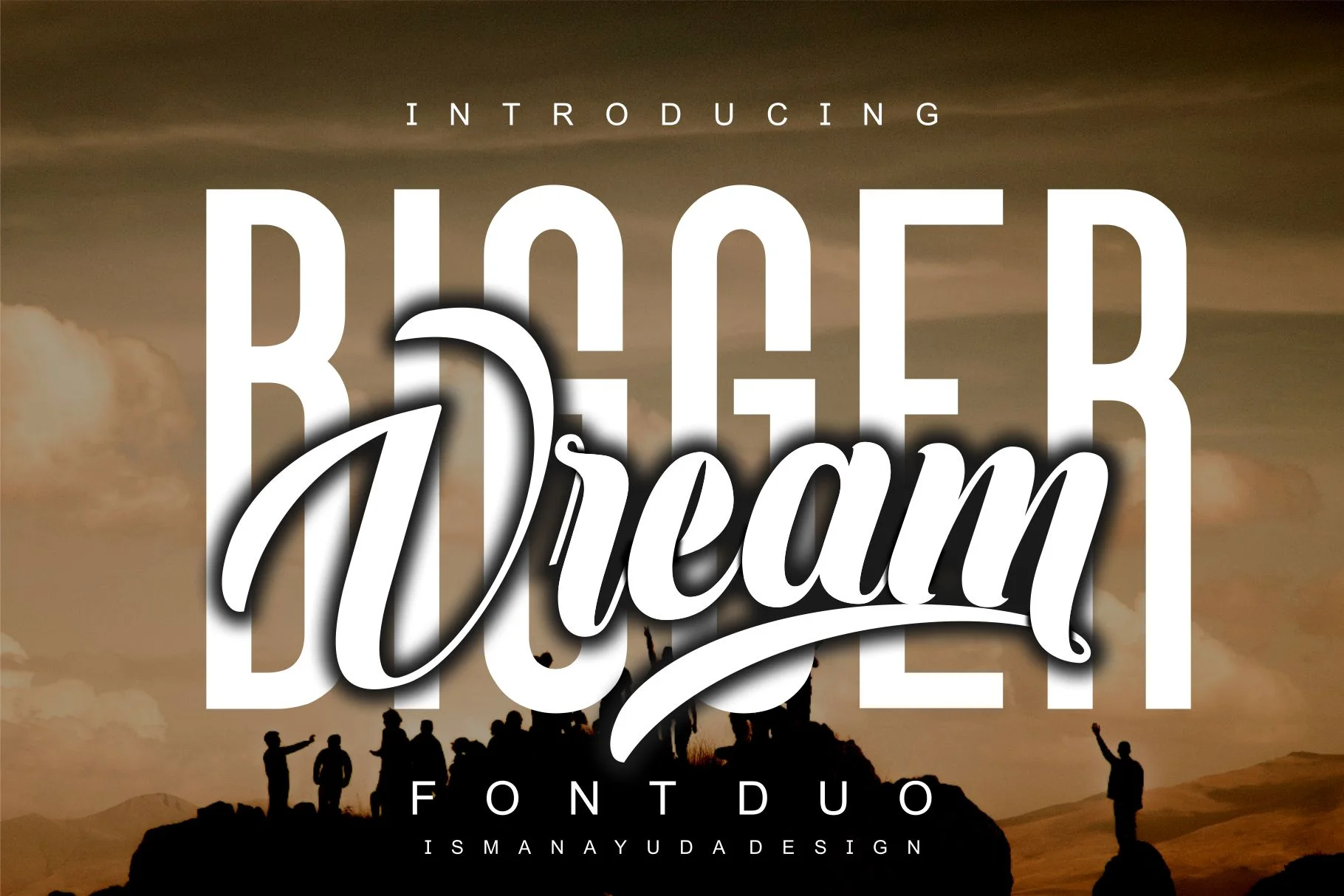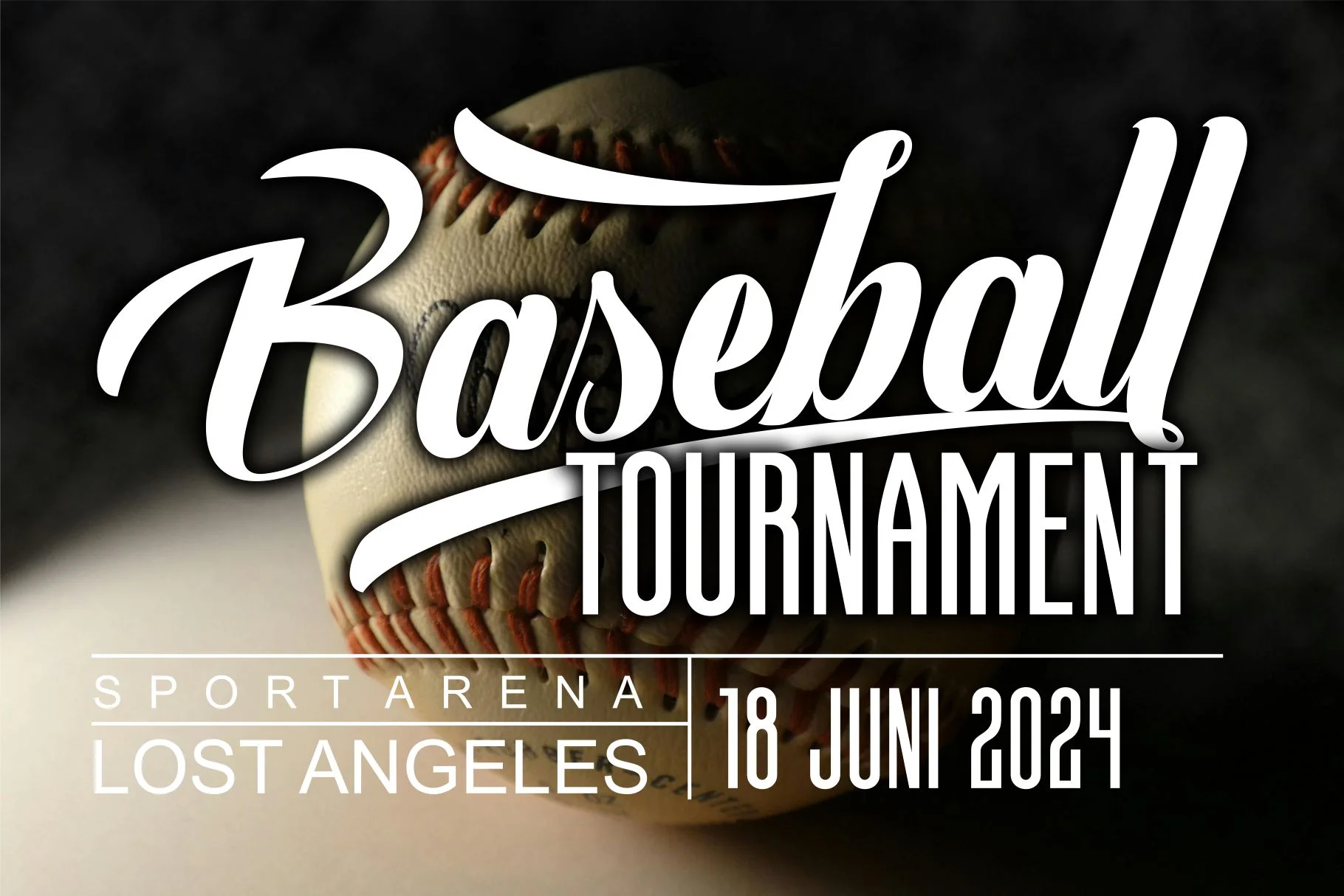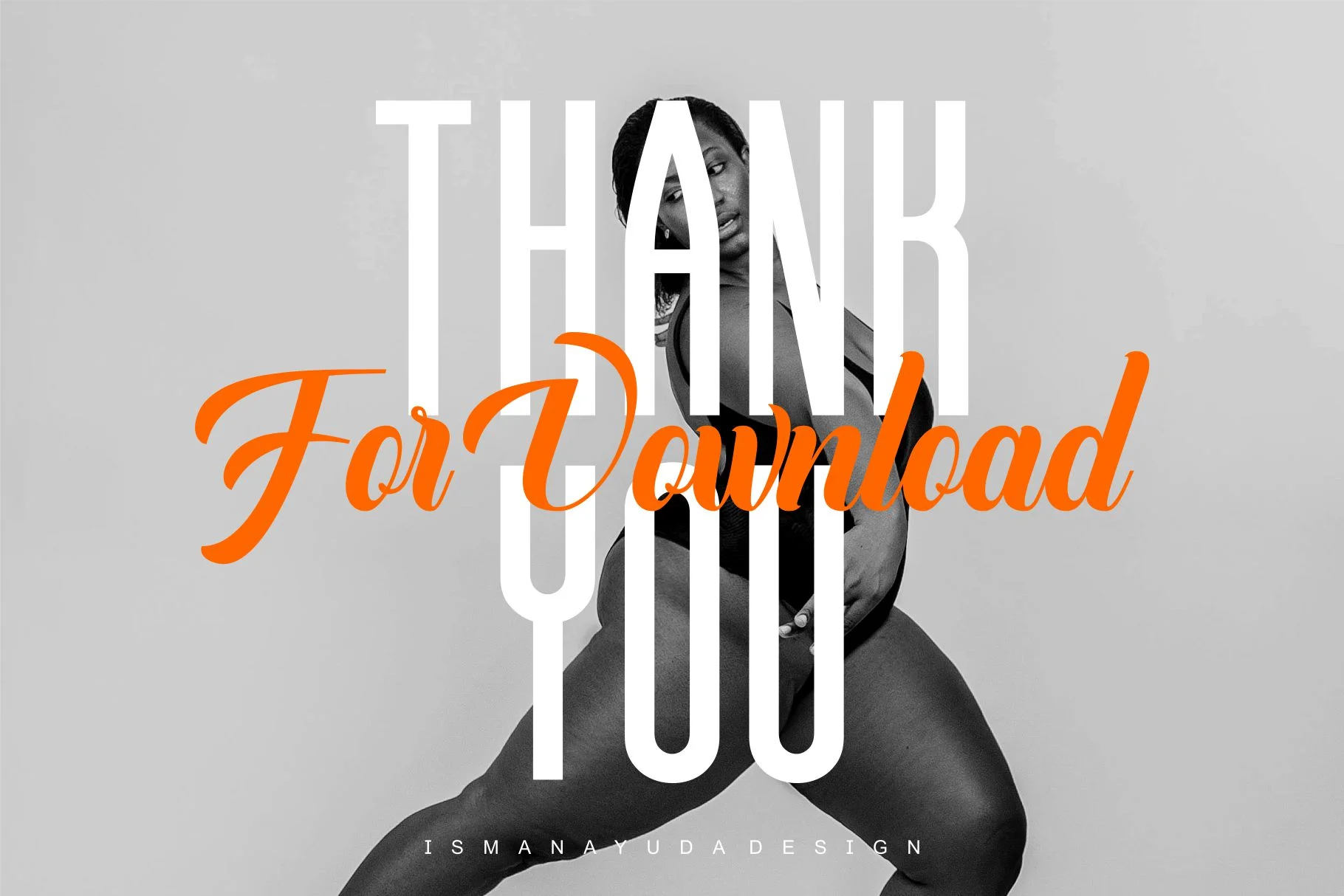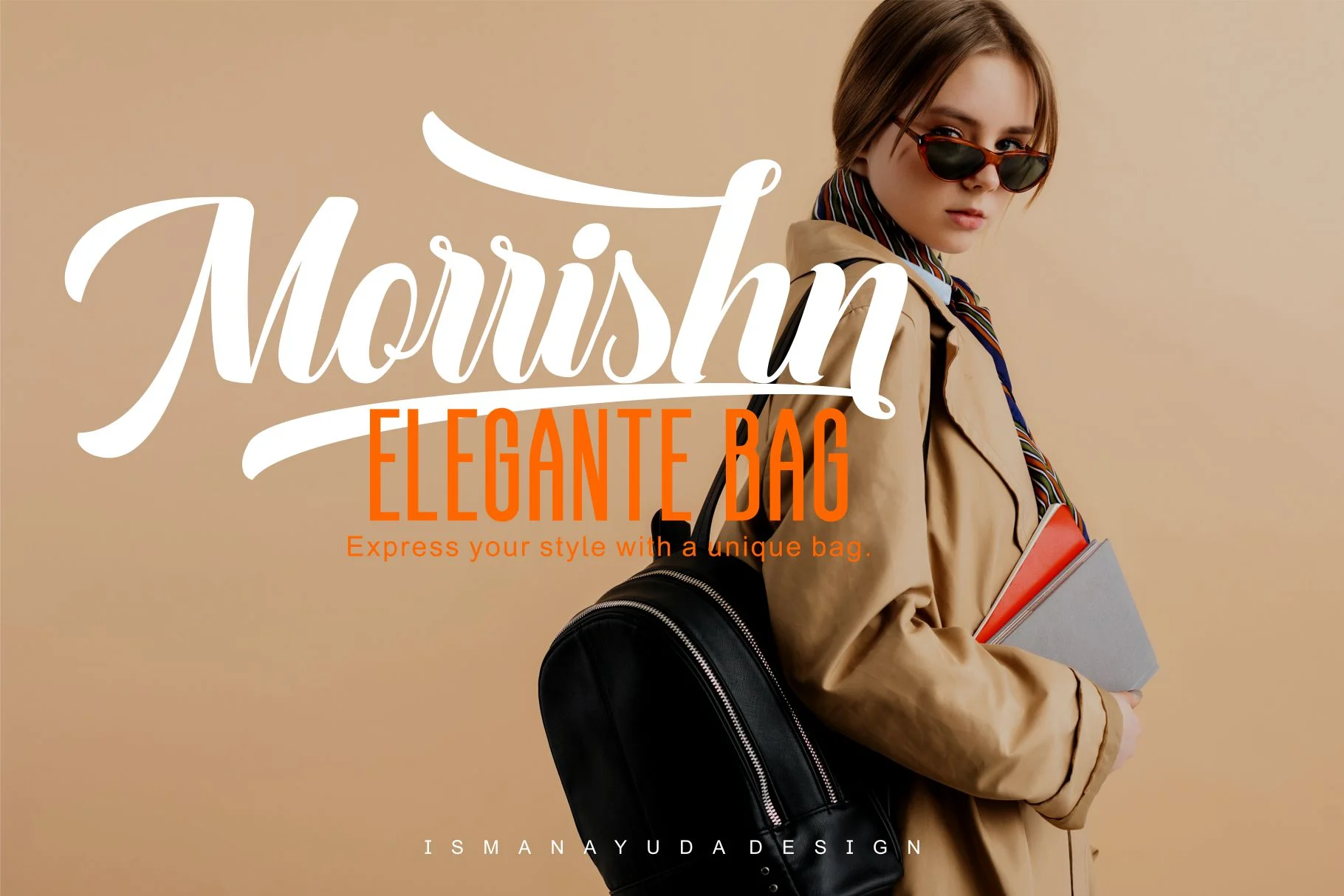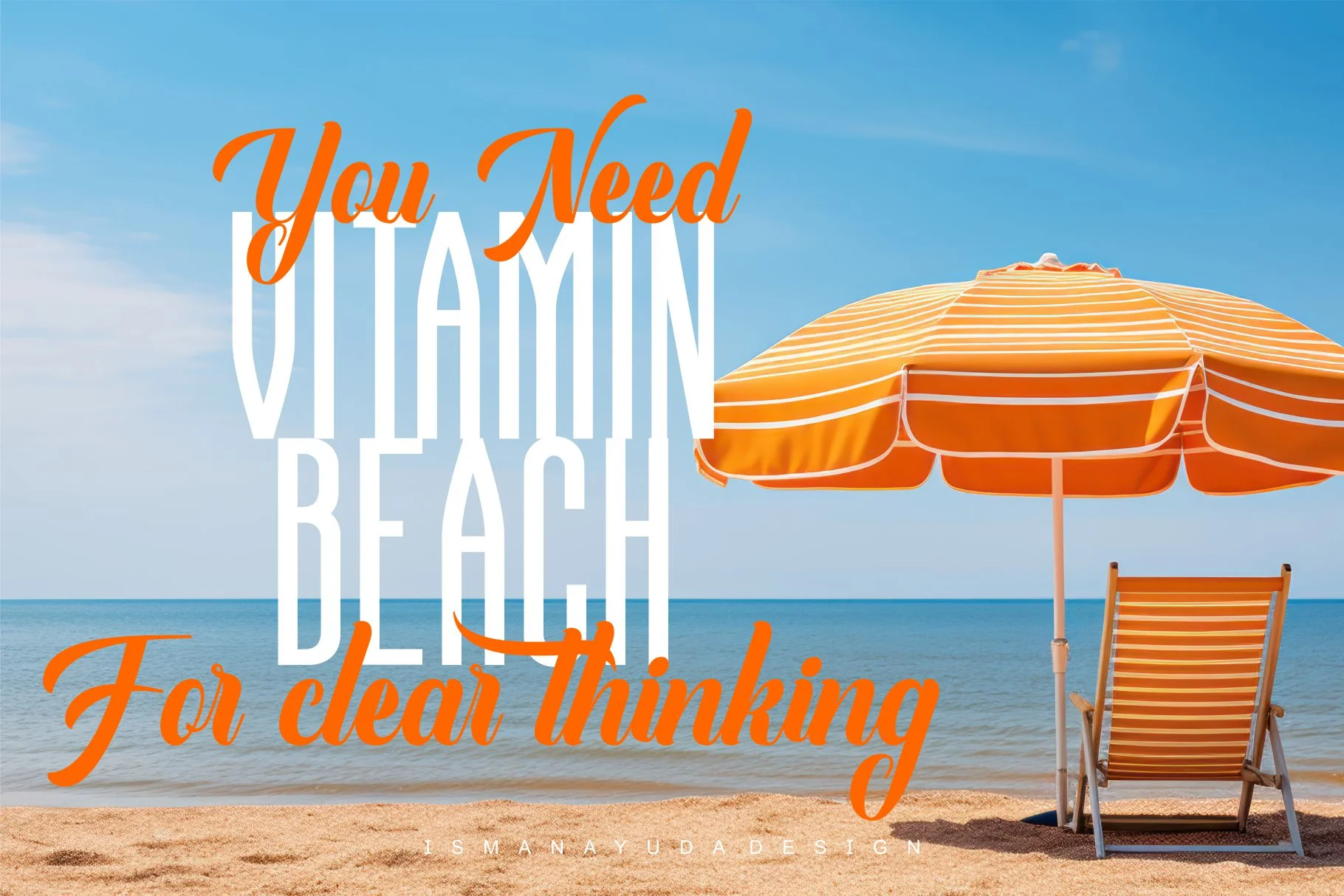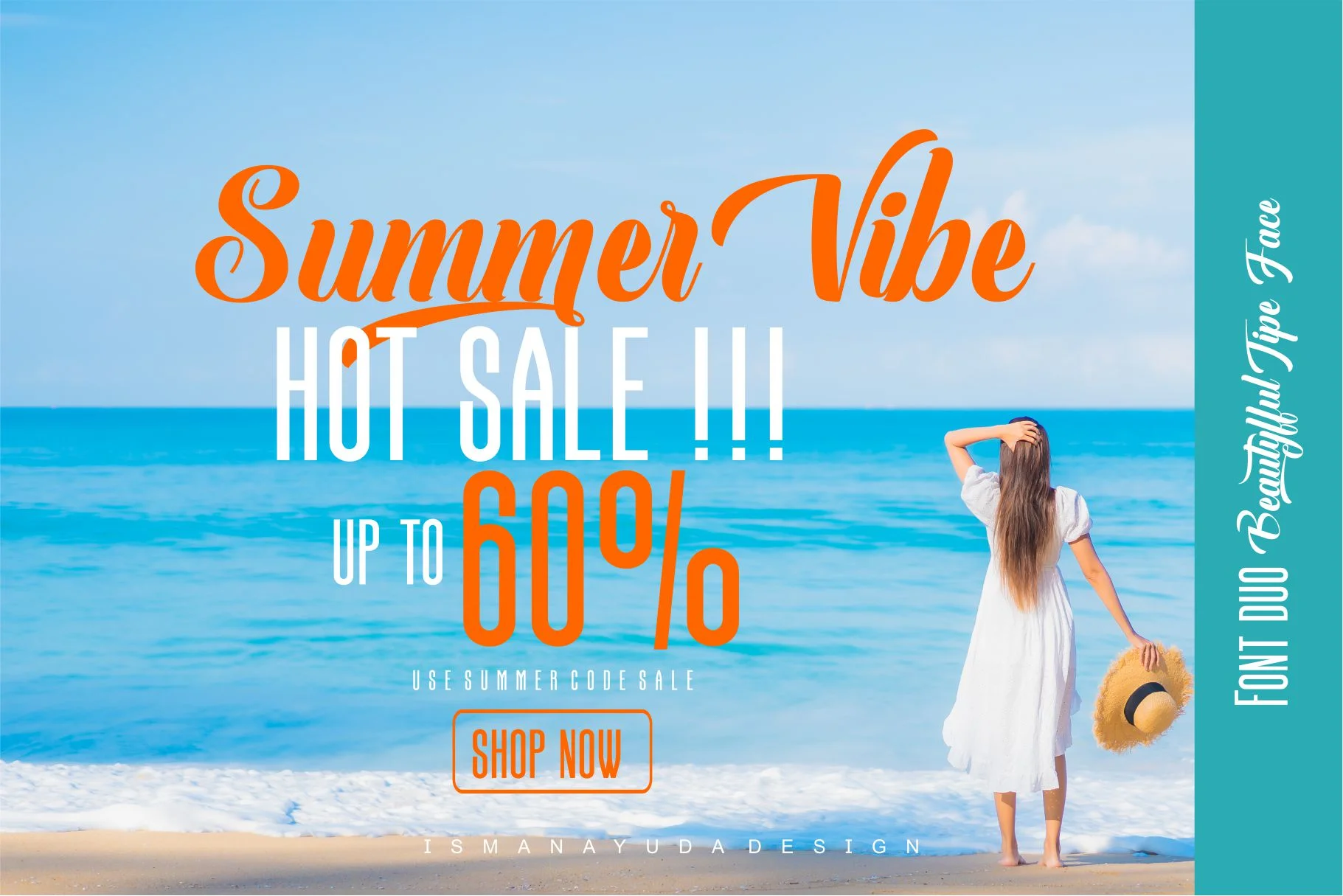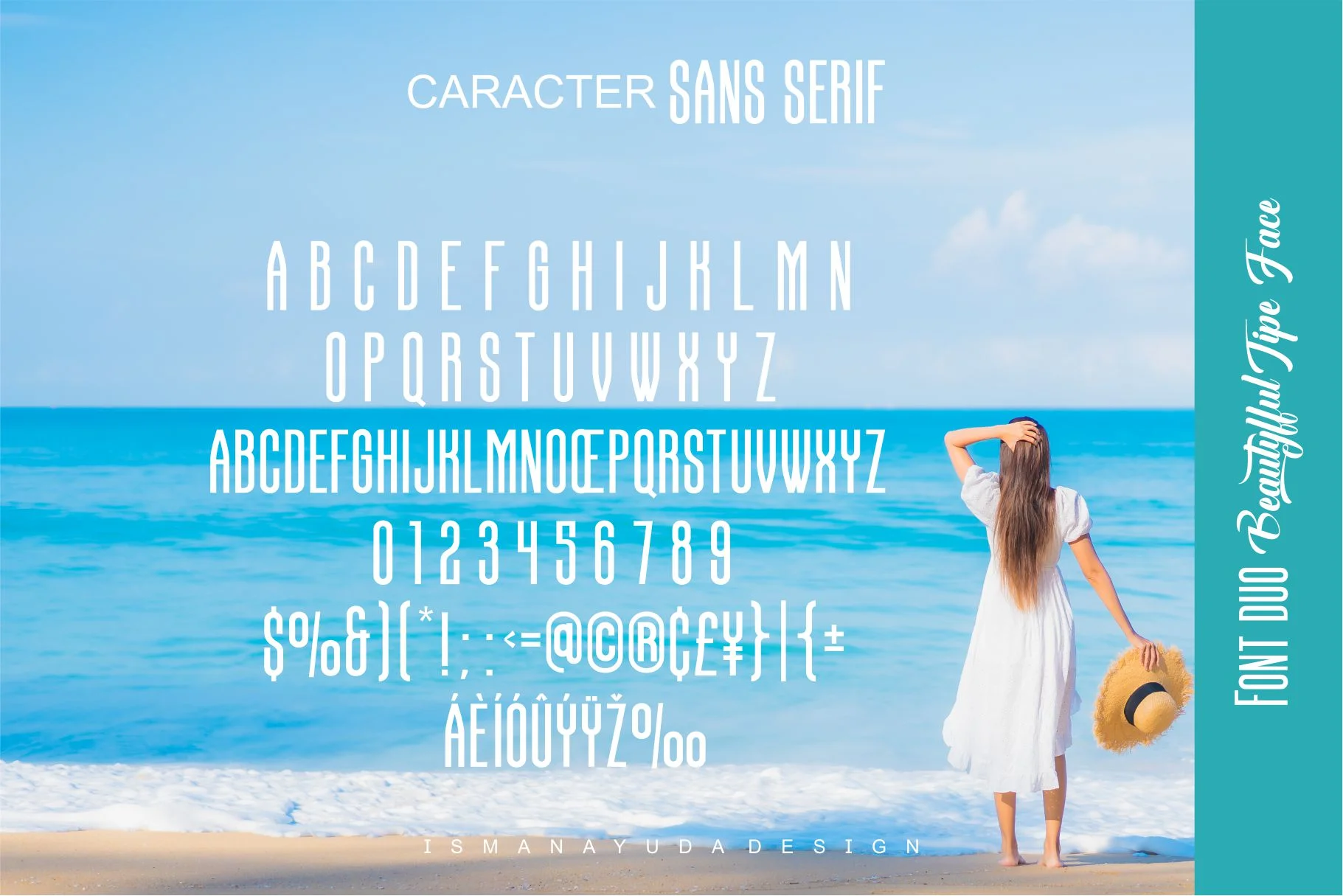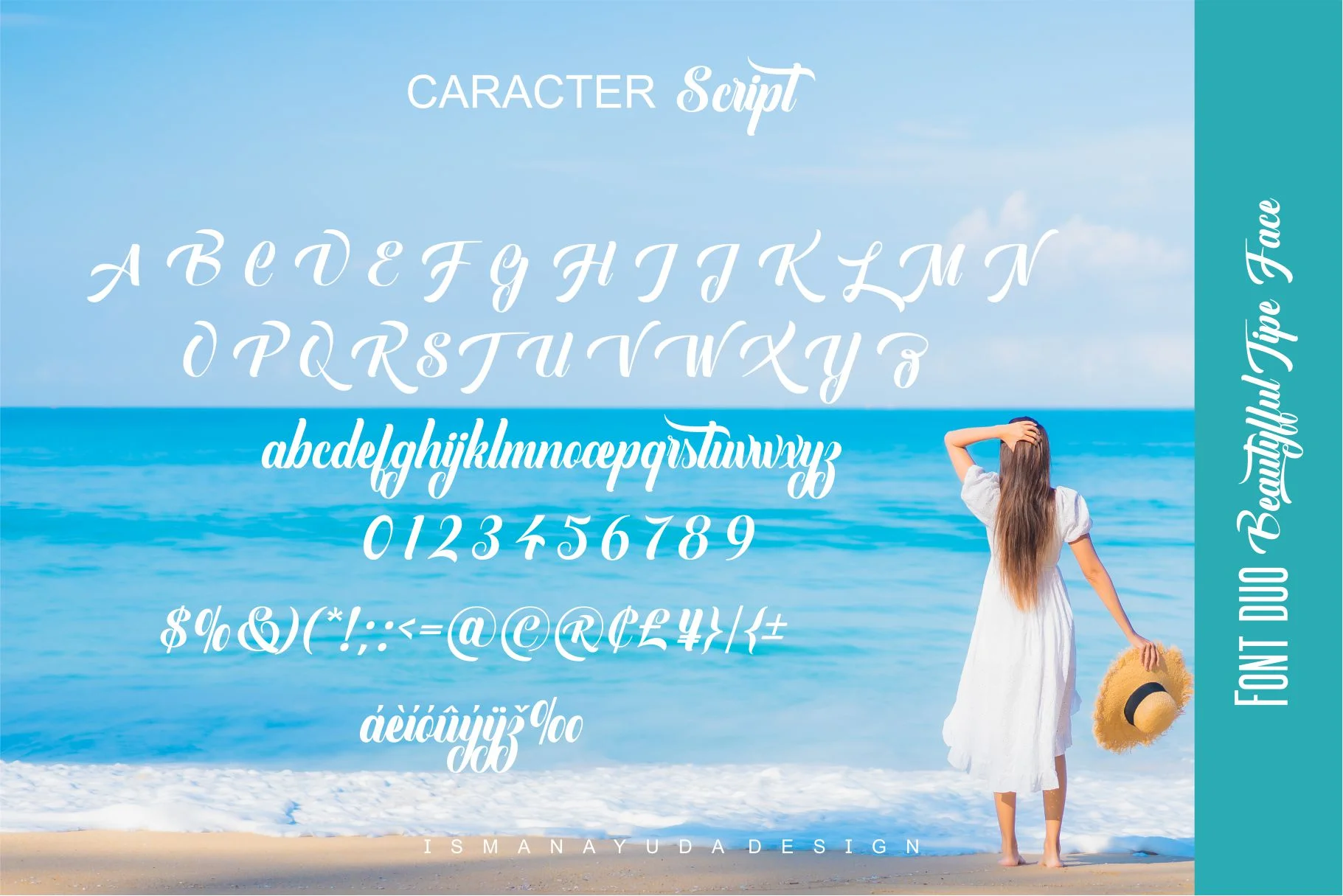
Bigger Dream
Bigger Dream is a stylish and trendy font duo that seamlessly combines two contrasting styles: a bold, elegant Script font and a clean, modern Sans Serif.
- Script Font: Features a "Dreamy" and "Bouncy" hand-lettered aesthetic with fluid, cursive strokes. It includes Stylistic Swashes that add a romantic and artistic touch, making it perfect for creative expressions like signatures or wedding invites.
- Sans Serif Font: Designed with tall, streamlined, and clean lines. This bold display font provides high readability and a contemporary look, balancing out the decorative script for a more professional and grounded feel.